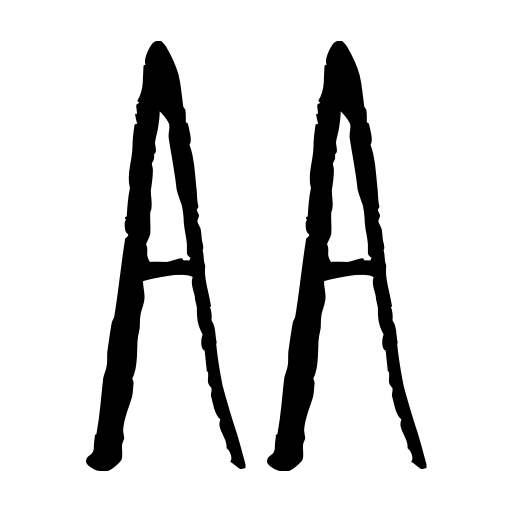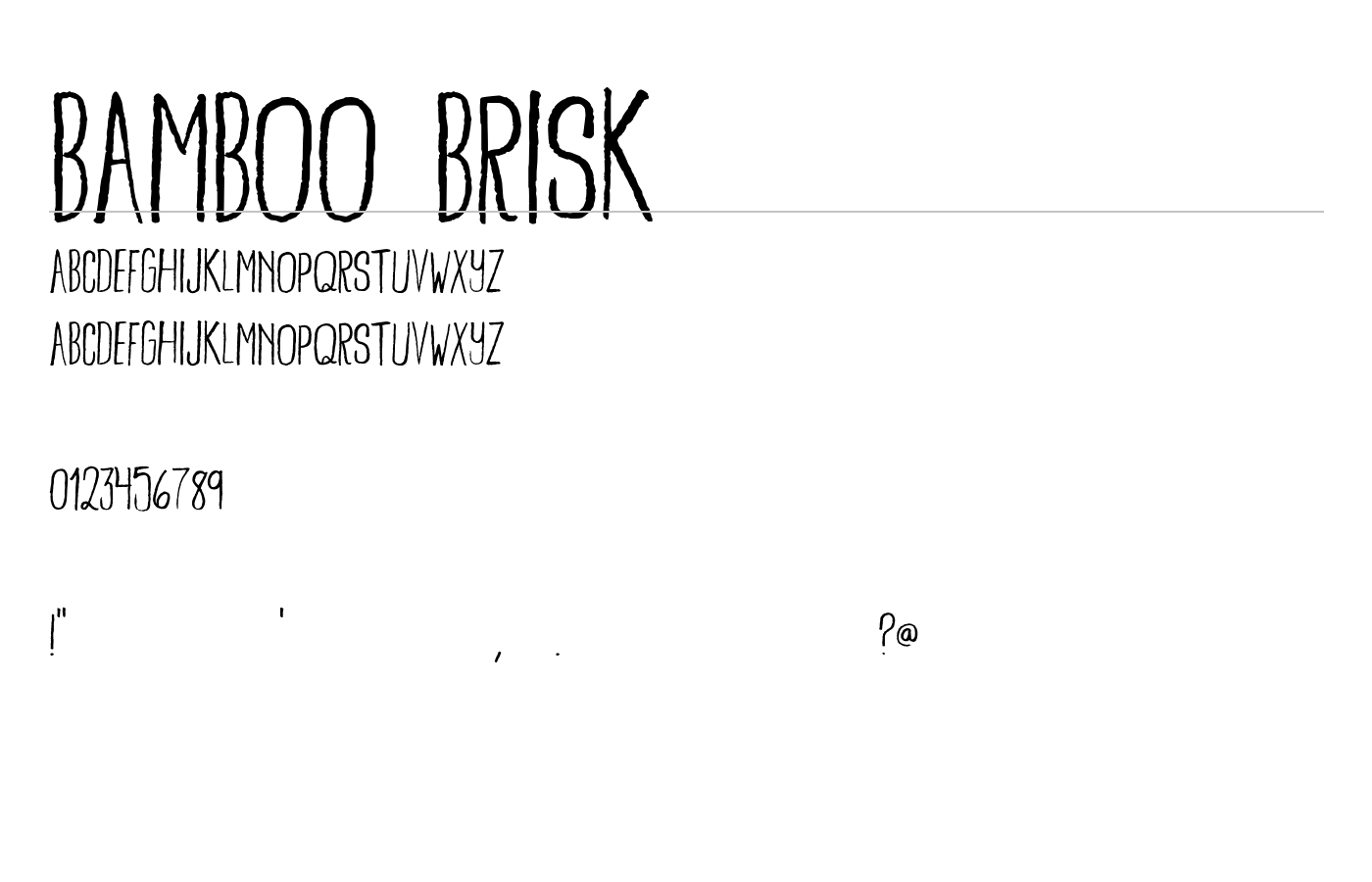
Bamboo Brisk is a slender, tall sans serif font with a hand-drawn, slightly rough texture that gives it a lively and organic feel. Its narrow letterforms and uneven strokes create a casual, approachable style well suited for creative projects, posters, and branding that seeks a quirky, personal touch. This font works best in headlines or display use where its distinctive character can stand out and add personality.
Bamboo Brisk Font